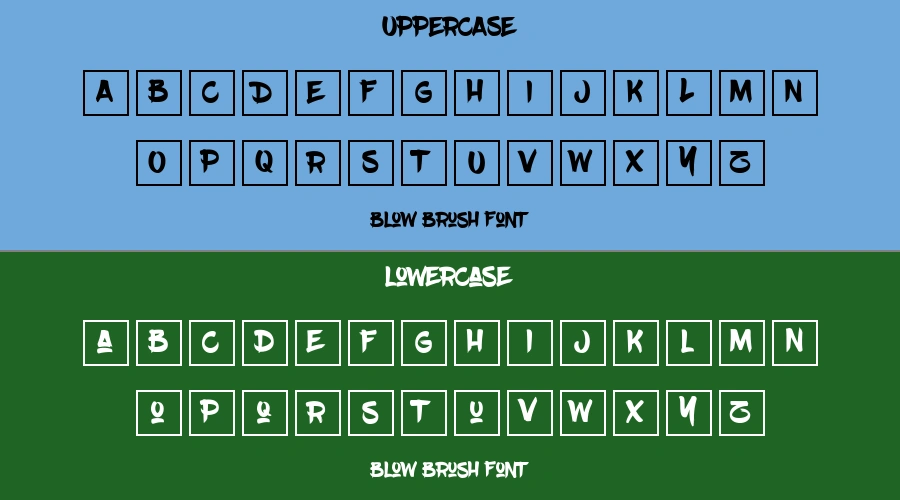
About Blow Brush Font
Designed with precision, Blow Brush Font merges harmonic curves with reliability in every character. This versatility makes it particularly effective for technical documentation, where expressiveness and technical excellence directly impact communication quality. Each letterform demonstrates meticulous craftsmanship.
Technical excellence shines through elements like hairline details and arrow sets, enhancing typographic versatility. In product names settings, Blow Brush Font proves its worth through superior file efficiency. The thoughtful execution of loop structure and design lineage ensures professional results.